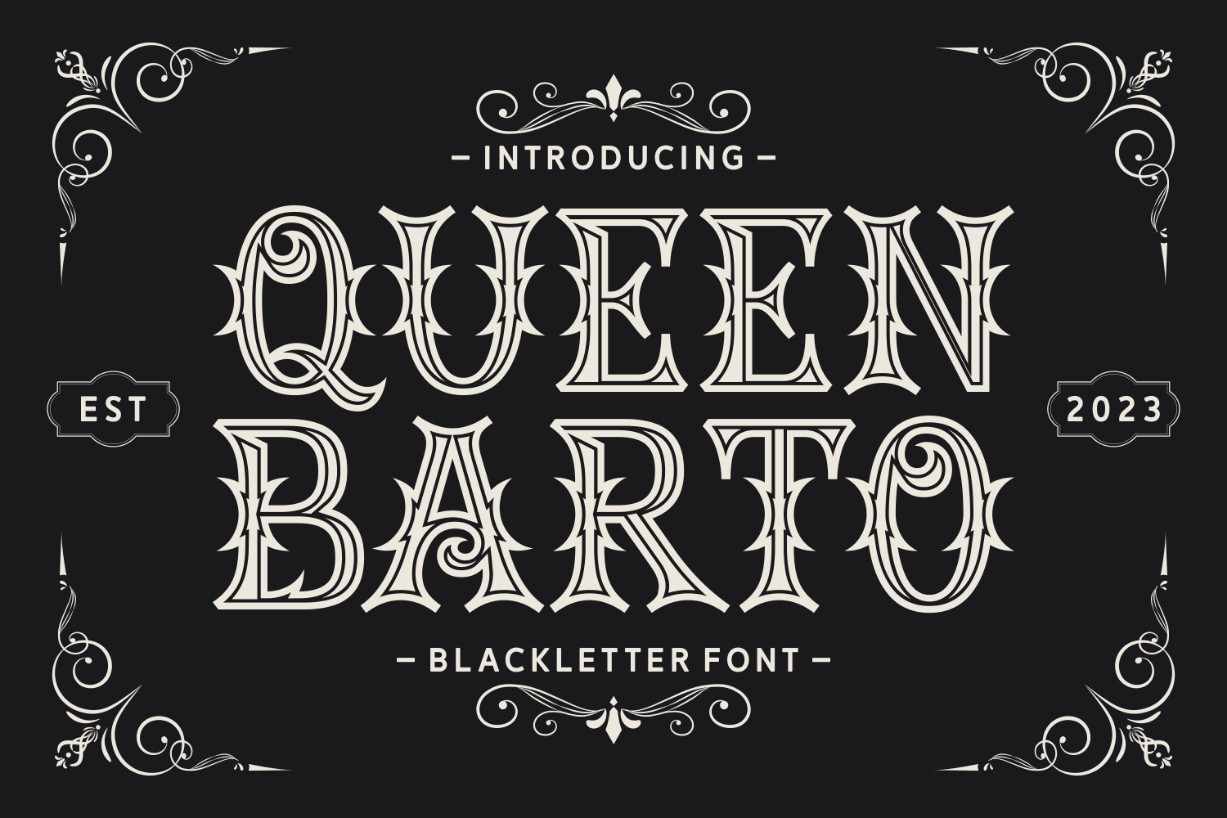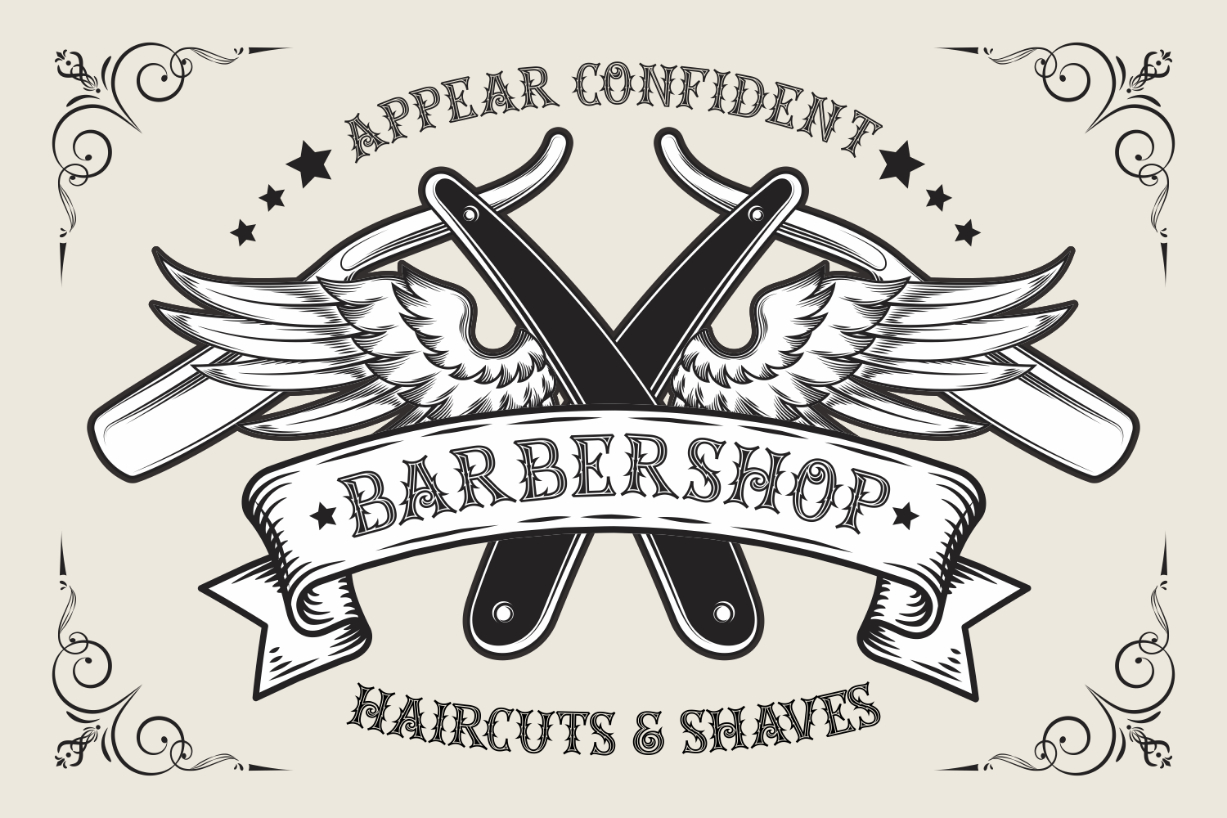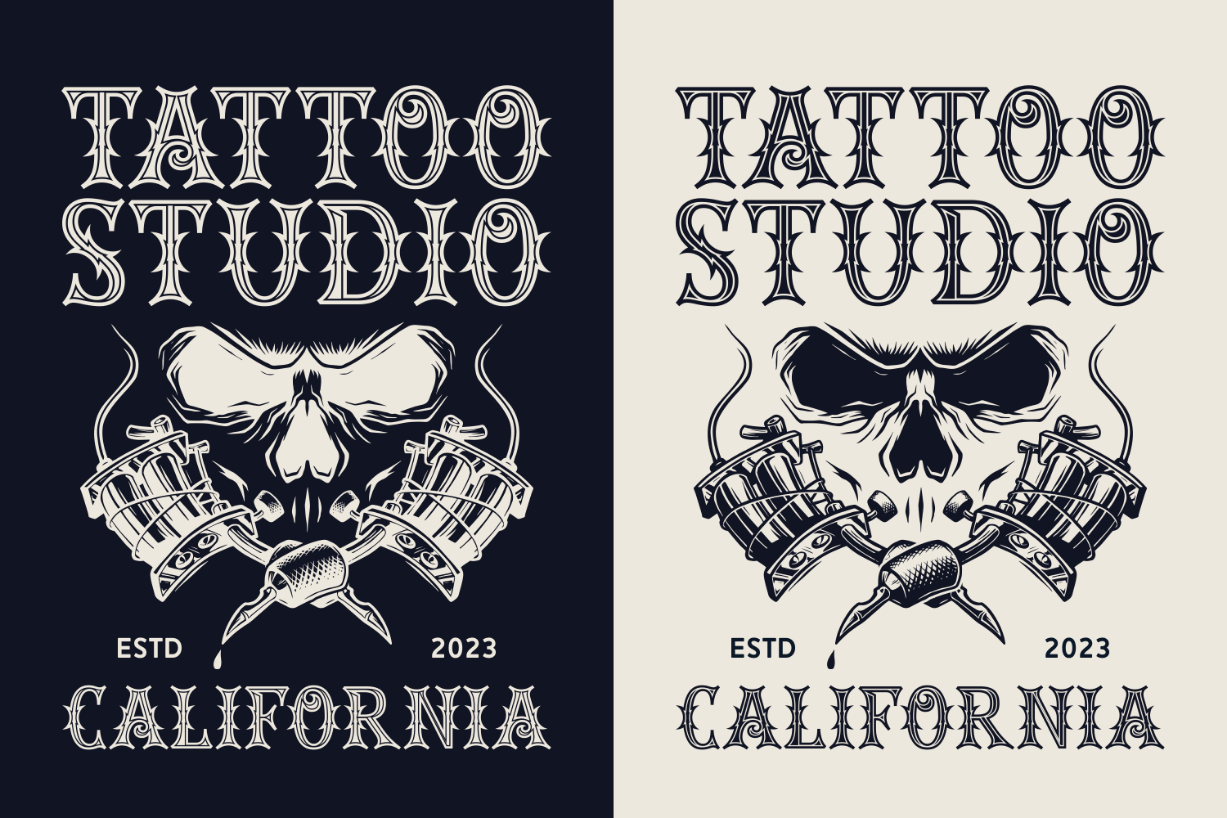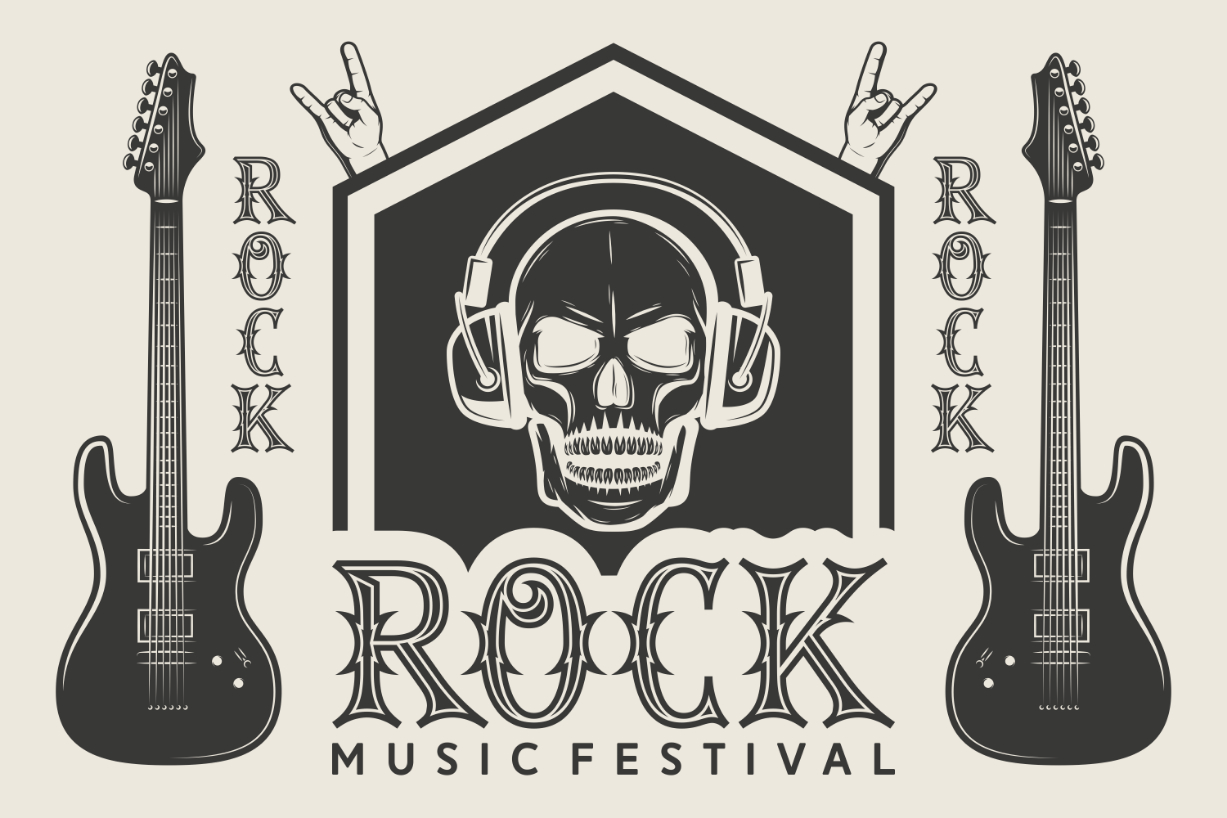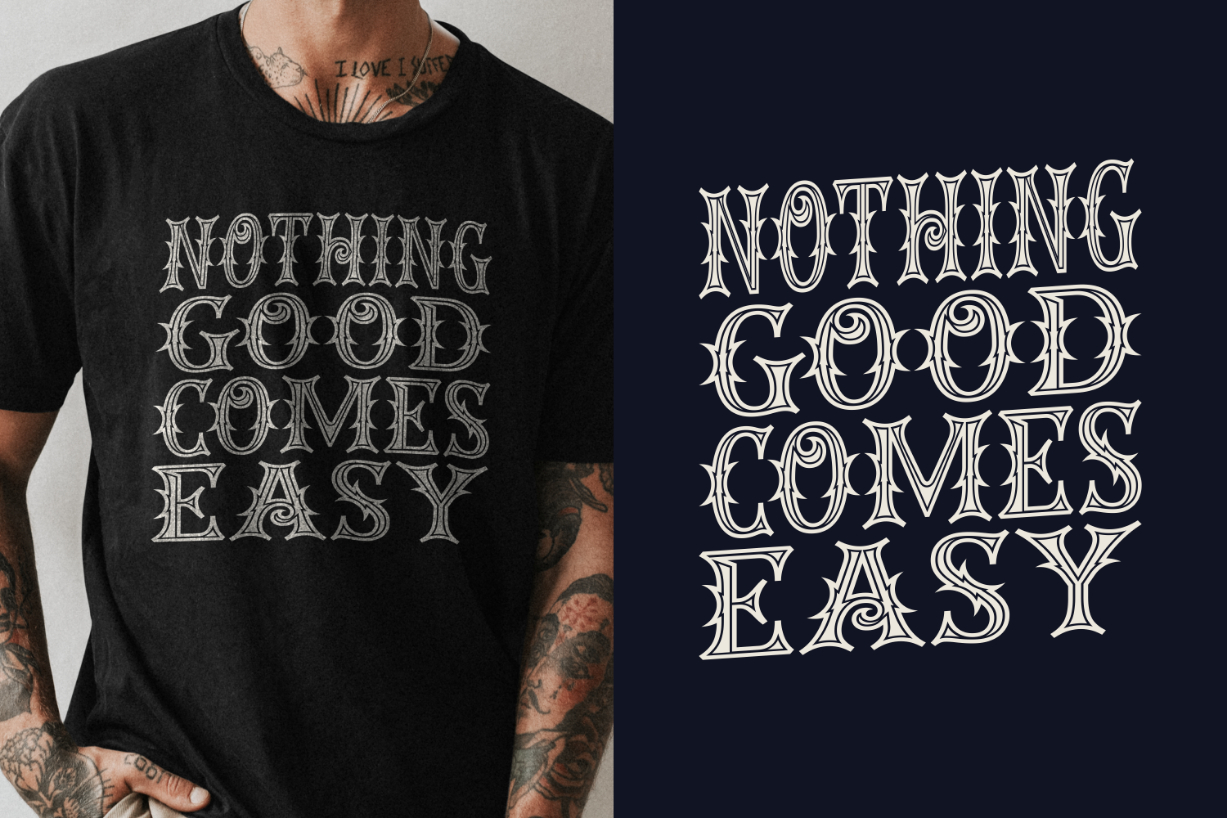
Queen Barto Font
About Queen Barto Font
Queen Barto is a gorgeous, intricately stylized blackletter font. Embellished with elegant swashes and pointy elements, this splendid typeface will add a touch of sophistication to any typography project. Try it on logos, book covers, music album covers, headlines, titles, signage, and more.